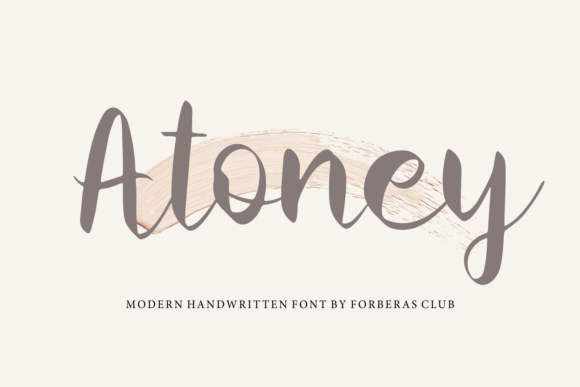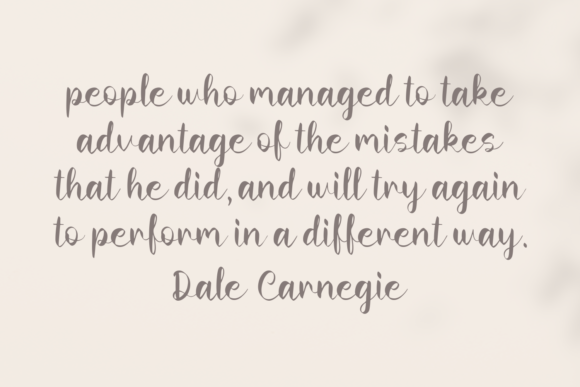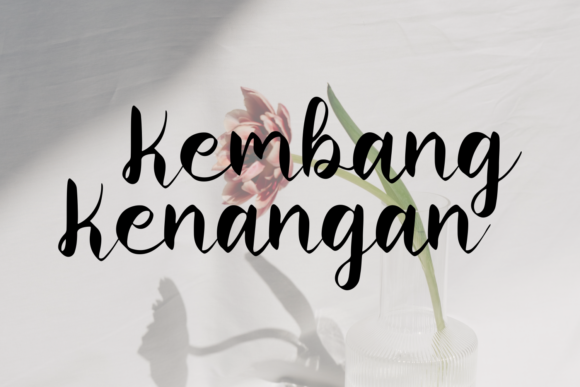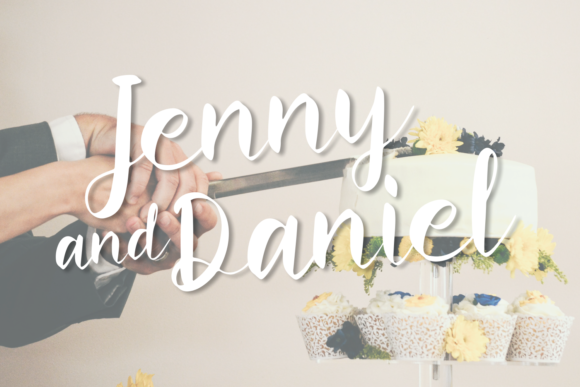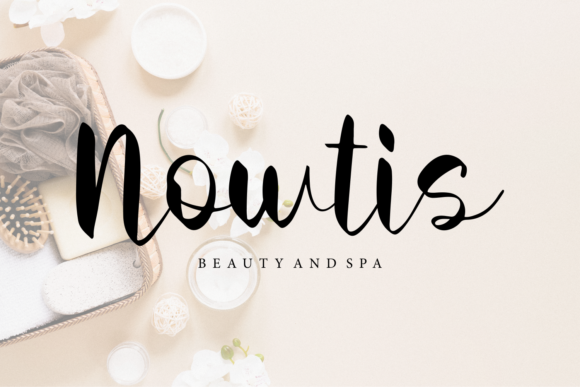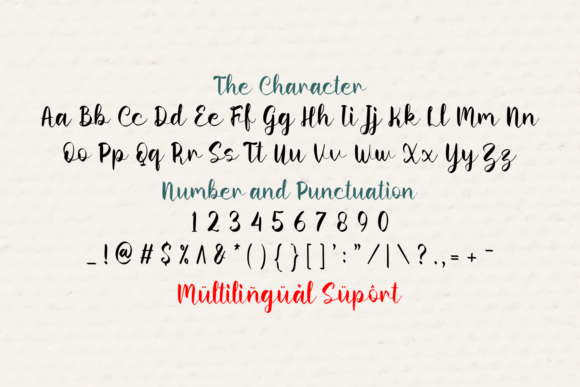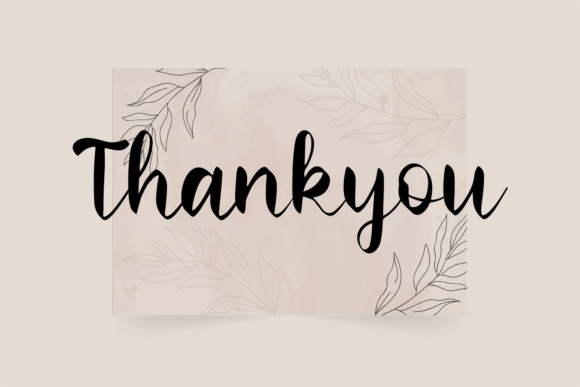
The Art of Elegant Typography: Discovering Atoney Font
Have you ever been stuck in a creative rut, struggling to find the perfect font to convey your message? It’s a problem many designers face, but what if I told you there’s a solution that can elevate your designs to new heights? As a designer, I’ve often found myself searching for that perfect handwritten touch to make my work truly special.
That’s where Atoney Font comes in – a charming and elegant script font that’s perfect for adding a personal touch to your designs. Whether it’s a wedding invitation, a heartfelt thank you card, or a business logo, Atoney Font is the perfect choice to make your message stand out. Its versatility and sophistication make it a valuable asset for any designer looking to add a unique touch to their work.
Key Features of Attorney Font
- Unique Characteristics: Attorney Font features a unique, classic design with a touch of elegance, making it perfect for professional documents, law firm materials, and corporate communications.
Designer Review: Atoney Font
Atoney Font, a relatively new addition to the world of typography, has caught my attention with its unique blend of modern and vintage flair. Here are some of my thoughts on what works well:
- ✨ Elegant and refined letterforms: The Atoney Font boasts intricate details and smooth curves, making it a pleasure to read and work with.
- ✨ Excellent legibility: The font is highly readable, even at smaller font sizes, which is a testament to its thoughtful design.
- ✨ Unique character set: The Atoney Font offers a range of special characters and symbols, adding to its versatility.
- ⚠️ Limited font weights: Atoney Font is available in only a few weights, which may limit its usability in certain design projects.
- ⚠️ Compatibility issues: I encountered some compatibility problems when using the font in different design software, which may be a concern for some users.
Overall, I’m impressed by the Atoney Font’s potential, but its limitations hold it back from being a top-tier choice. With further development and refinement, I think it has the potential to become a staple in the design community.
Tips for Getting the Most Out of Atoney Font
Use Atoney Font for creative projects that require a unique and stylish font. It pairs well with bold and bright colors. Experiment with different font sizes and styles to create a visually appealing design.
Atoney Font is commonly used in:
- Brand logos and identity
- Marketing materials (brochures, flyers, posters)
- Graphic design and illustration
Alternatives to Atoney Font for Designers
Montserrat is a modern sans-serif font designed by Julieta Ulanovsky. It is ideal for use in digital interfaces, such as websites and mobile applications, where legibility and readability are crucial. Montserrat has a more geometric and clean design compared to Atoney Font, making it a popular choice for modern designs.
Comparison to Atoney Font: Montserrat has a more minimalist design, with a focus on clean lines and geometric shapes. Atoney Font has a more traditional and classic feel, making Montserrat a better choice for modern and tech-savvy designs.
Lato is a sans-serif font designed by Łukasz Dziedzic. It is a highly versatile font that works well in a variety of contexts, from body text to headlines. Lato has a more rounded and friendly design compared to Atoney Font, making it a popular choice for designs that require a more approachable tone.
Comparison to Atoney Font: Lato has a more rounded design, with a focus on friendliness and approachability. Atoney Font has a more traditional and classic feel, making Lato a better choice for designs that require a more approachable tone.